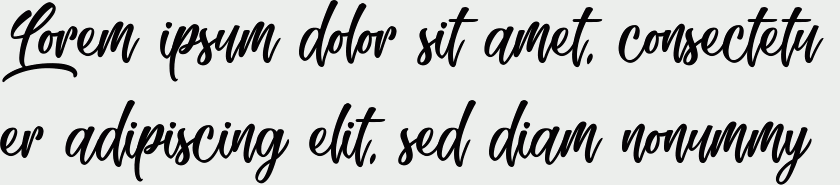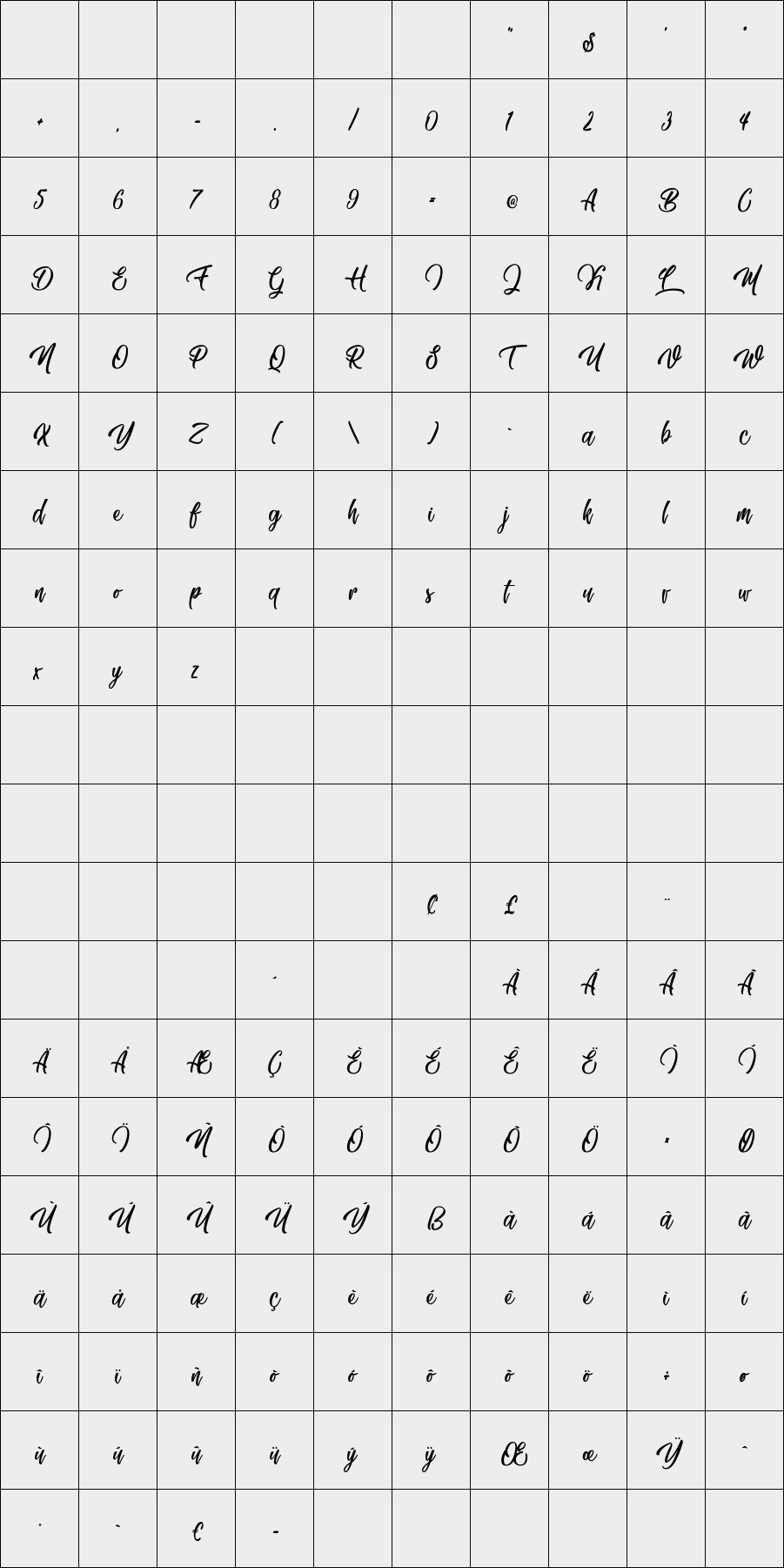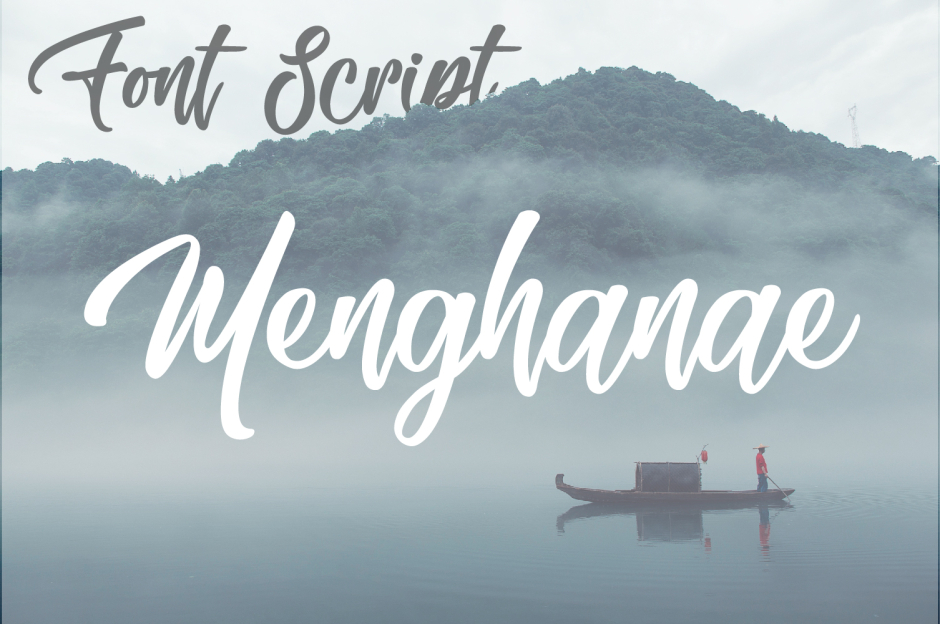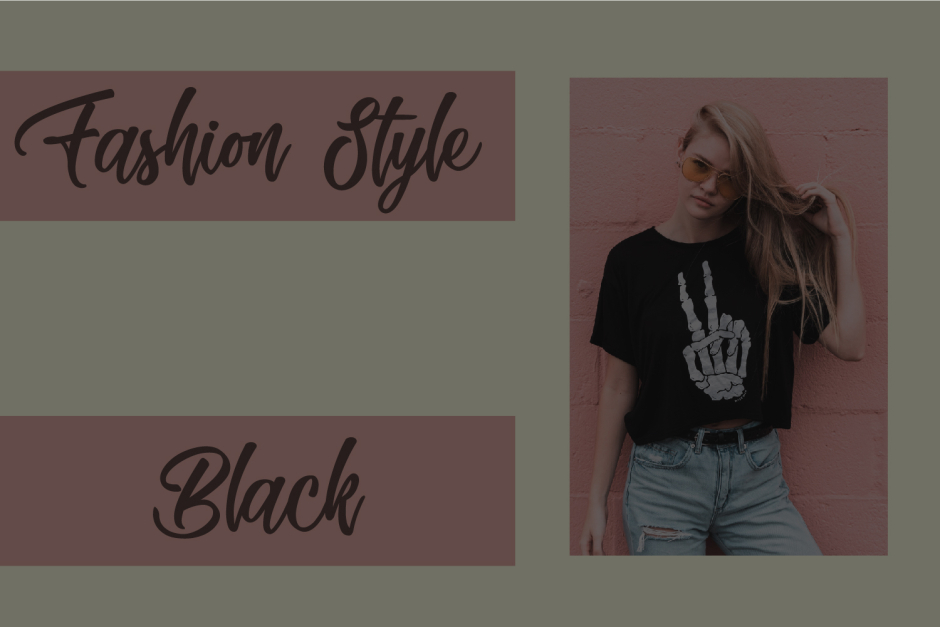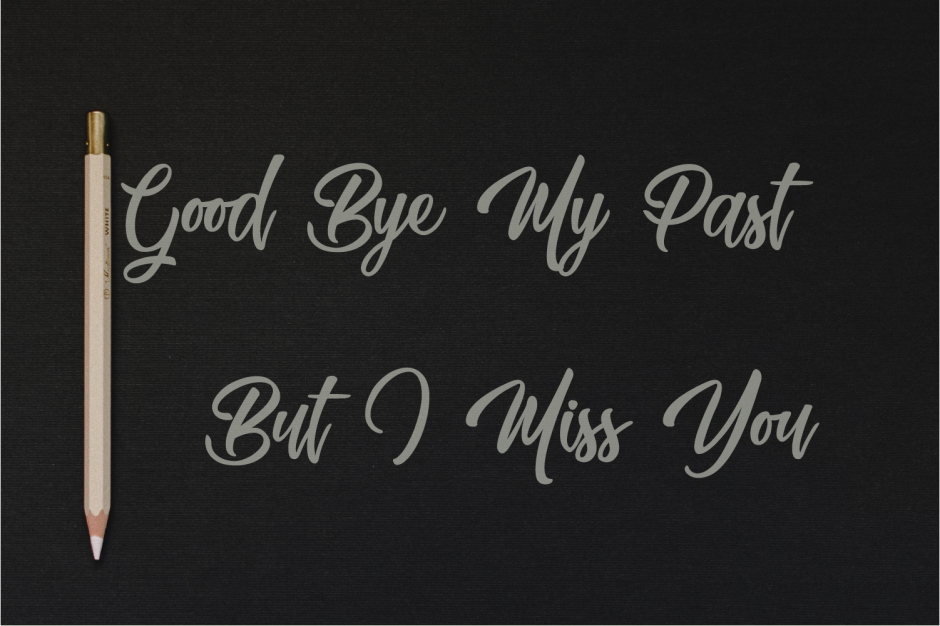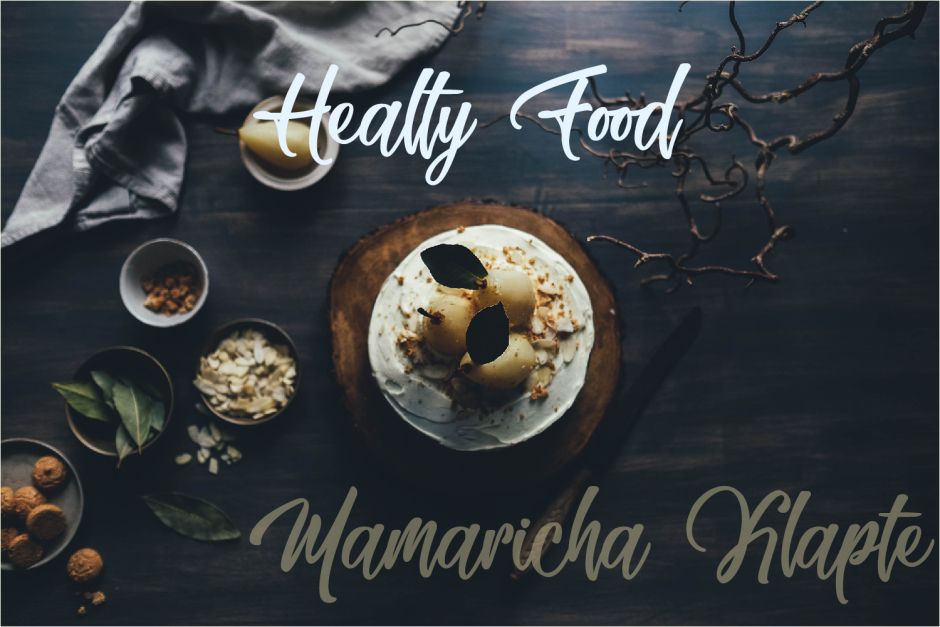
Menghanae
I'm glad to introduce you my new font Menghanae, I fell in love with, while working on it.
Menghanae is a font display that is comes with uppercase, lowercase, numerals.
So, if you are looking for a font that simulates the soft-edged handwriting, the Menghanae font is just for you!
Menghanae is a font display that is comes with uppercase, lowercase, numerals.
So, if you are looking for a font that simulates the soft-edged handwriting, the Menghanae font is just for you!